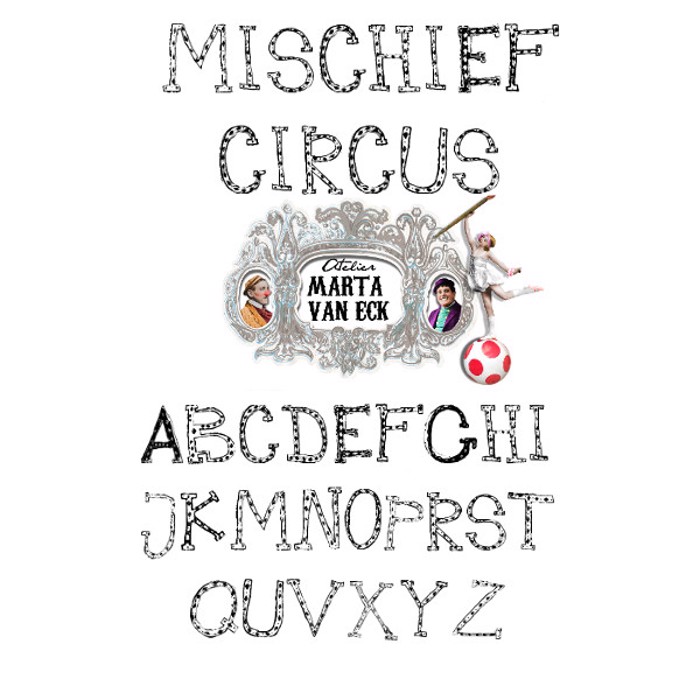
Mischief Circus Font
This font contains capital only. No number and no lower cases. Personal use only. This font was created for my scrapbooking kit Mischief Circus. http://www.mischiefcircus.com/shop/manufacturers.php?manufacturerid=25. If you are interested about CU license contact me at martavandereck@googlemail.com